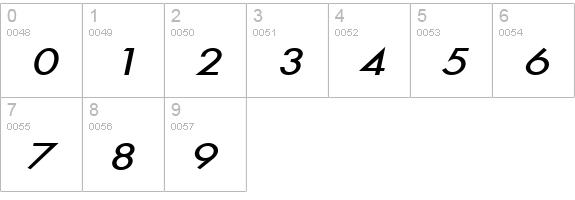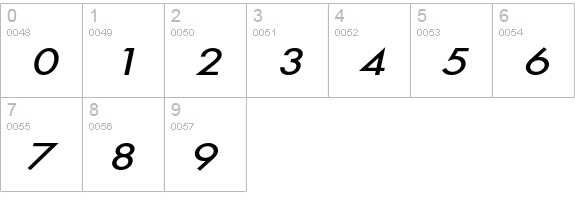
Beau-Extended Bold Italic is a strong, high-contrast, extended-width, italic variant in the Beau typeface family \xE2\x80\x94 well suited to headlines, attention-grabbing titles, and strong calls-to-action.
Introducing Beau-Extended Bold Italic, a stunning and versatile font that exudes elegance and sophistication. With its bold and italic design, Beau-Extended commands attention and adds a touch of modern flair to any project. The sleek lines and sharp angles of this typeface make it perfect for headlines, branding, and editorial design. But what's even better? Beau-Extended Bold Italic is available for free download at FontsMarket.com! This means you can effortlessly elevate your projects with this eye-catching font without breaking the bank. Embrace the boldness and creativity that Beau-Extended Bold Italic offers, and make a statement with your designs today. Download your free copy now and let your creativity soar with this striking typeface.